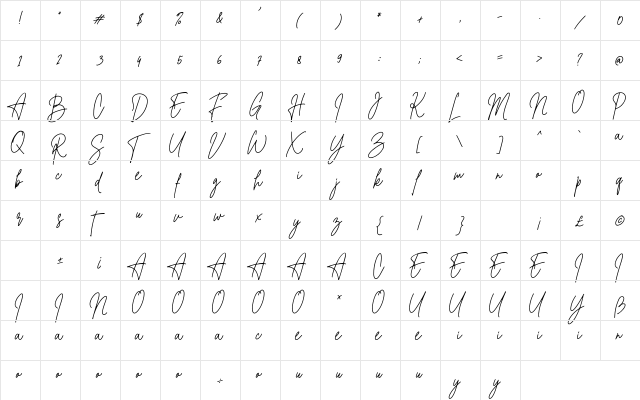
Christine Signature Regular
| Foundry | Wasisme Studio |
| Designer | Wasisme Studio |
Design Context for Christine Signature Typeface
Christine Signature is a composed and adaptable typeface that performs quietly and consistently across a wide range of design contexts.